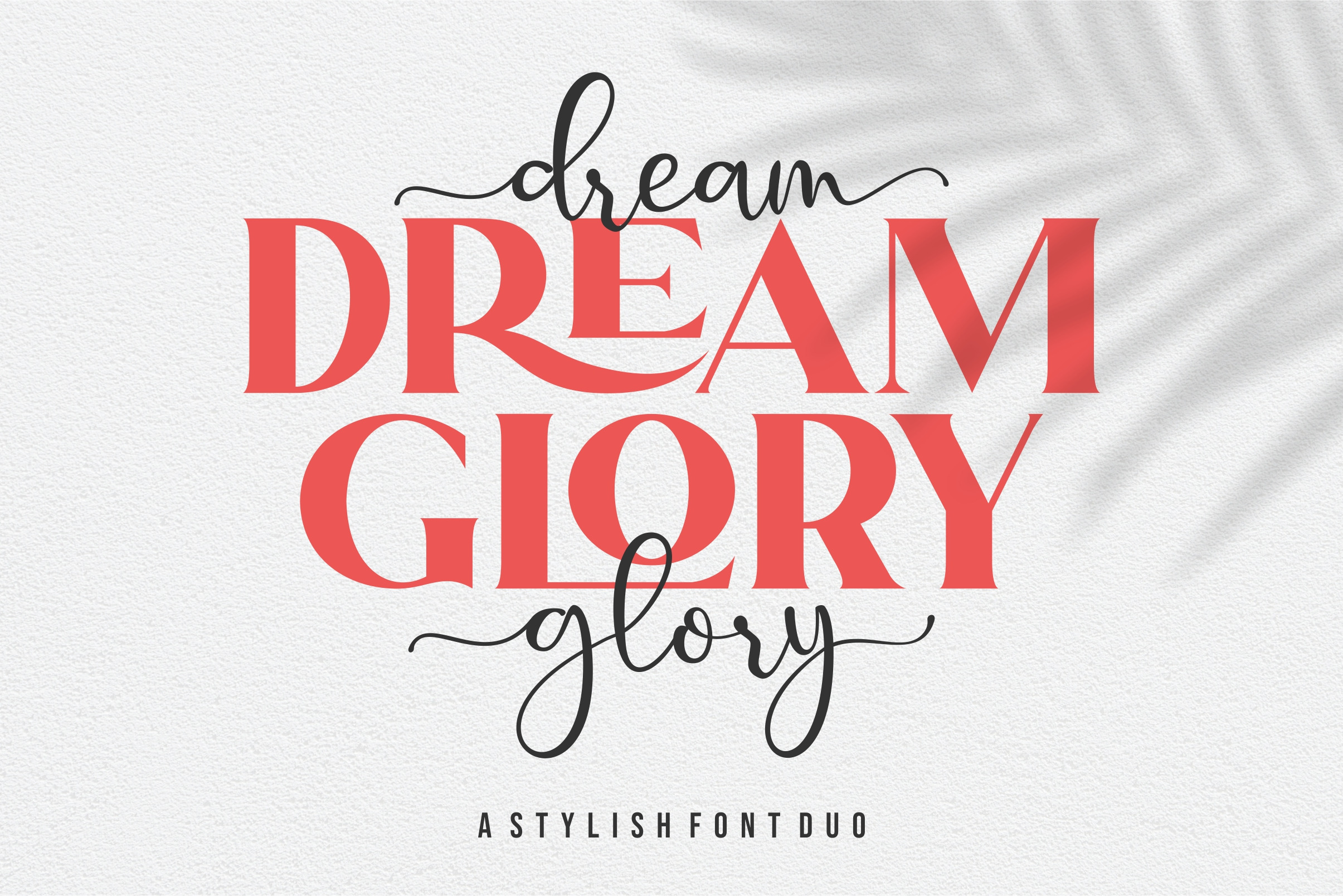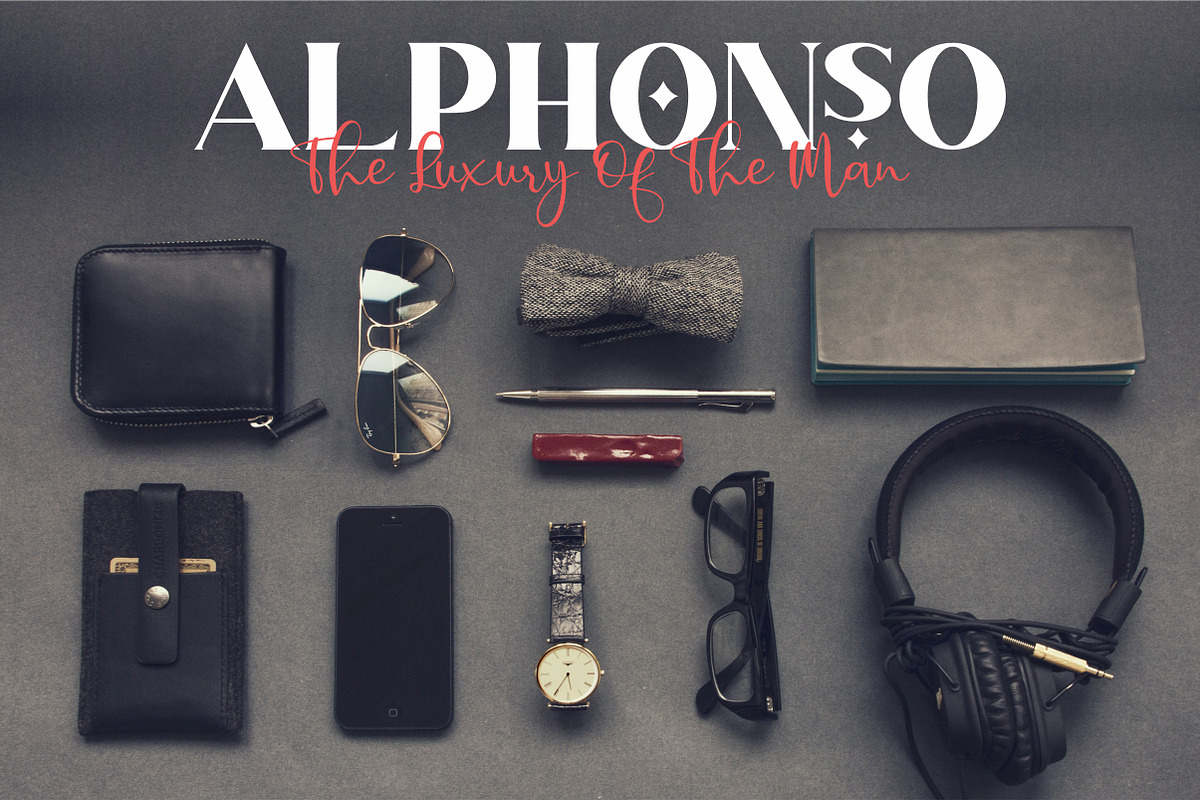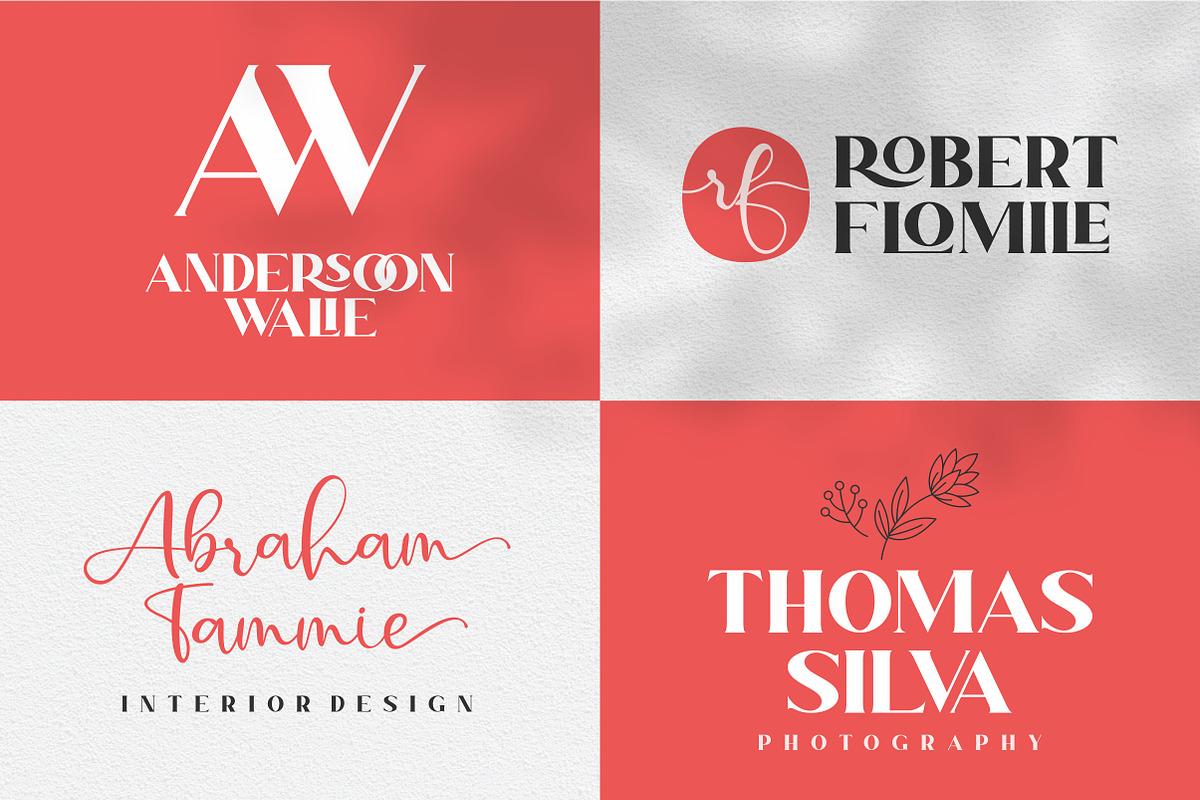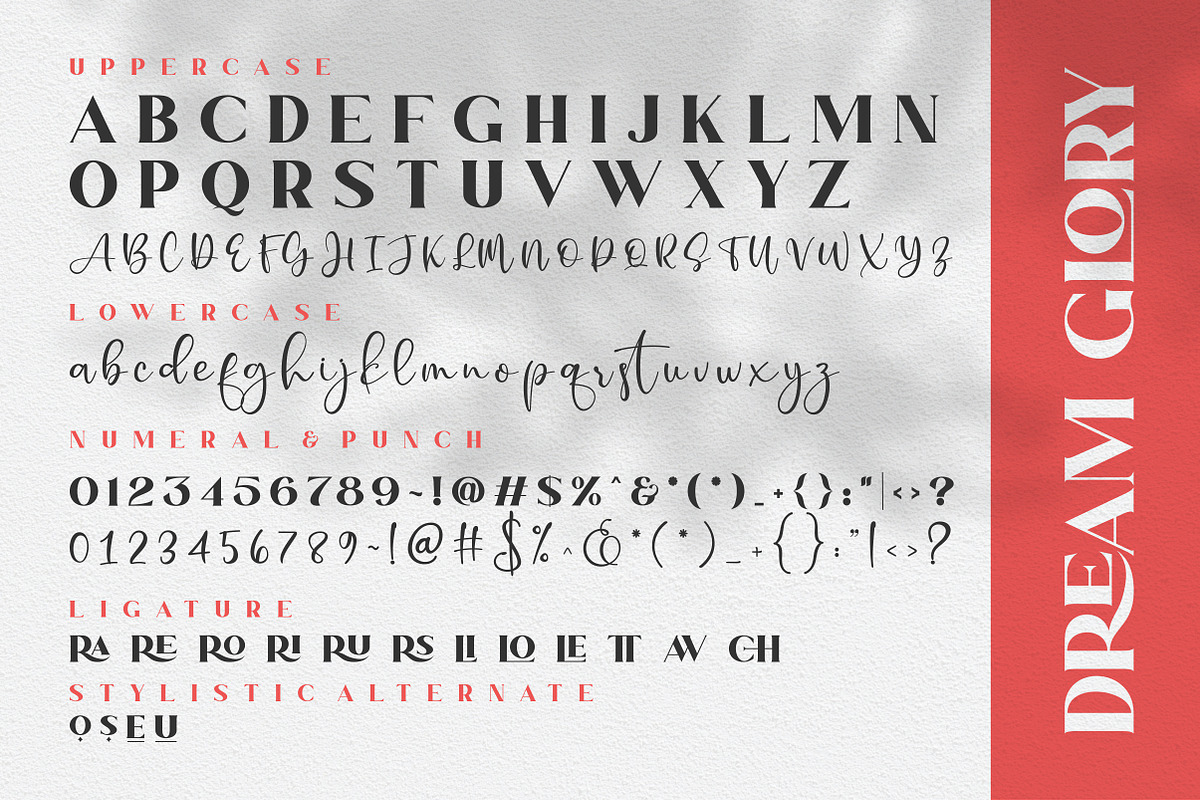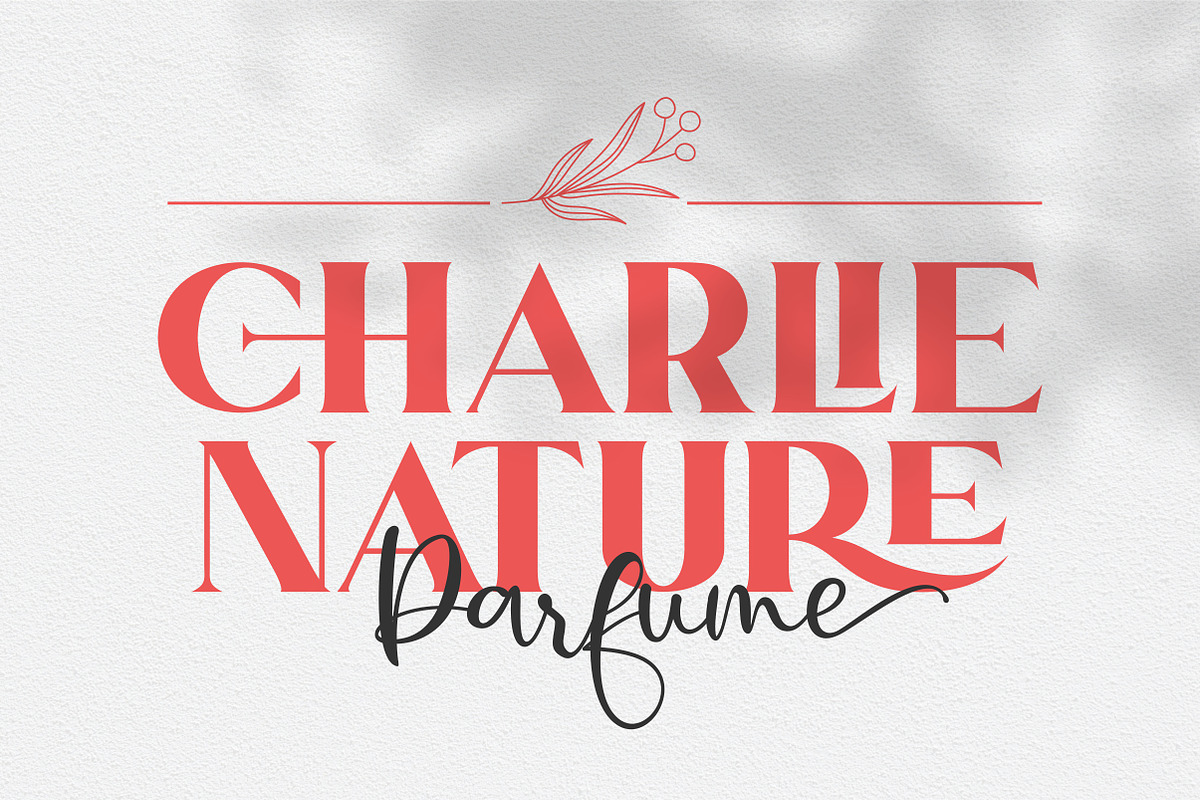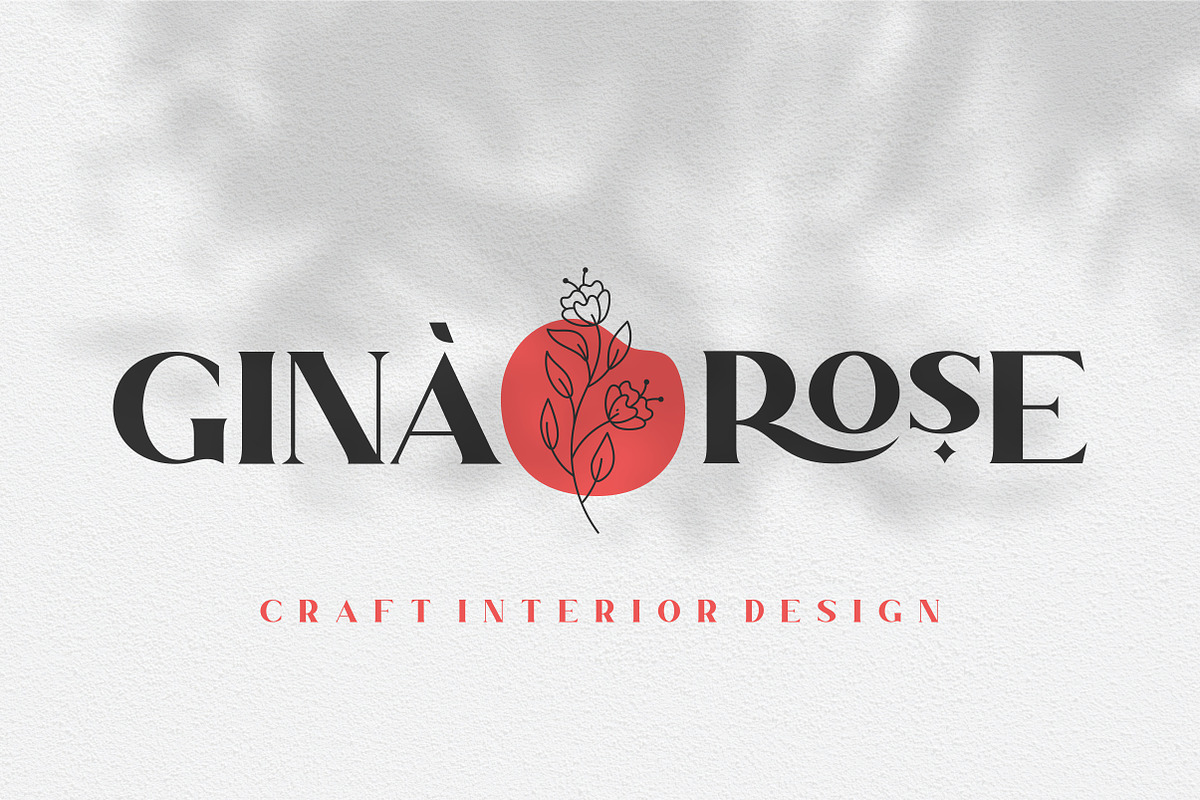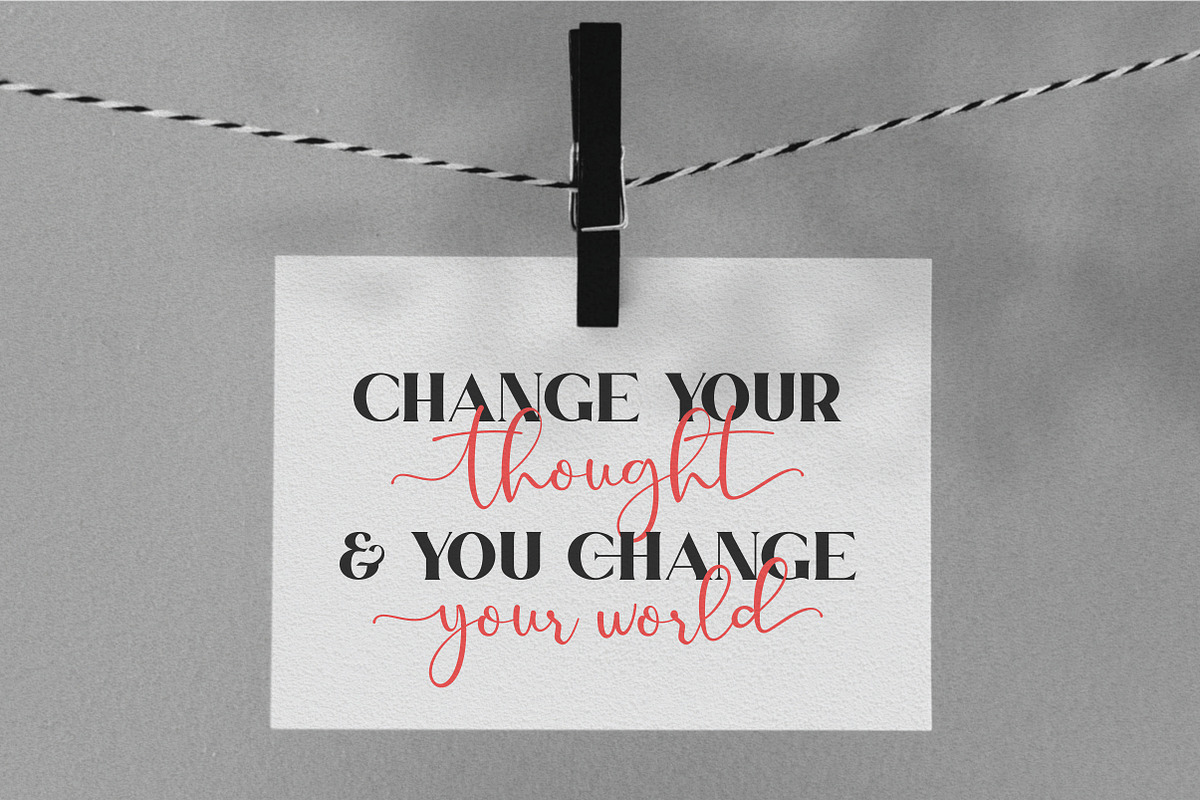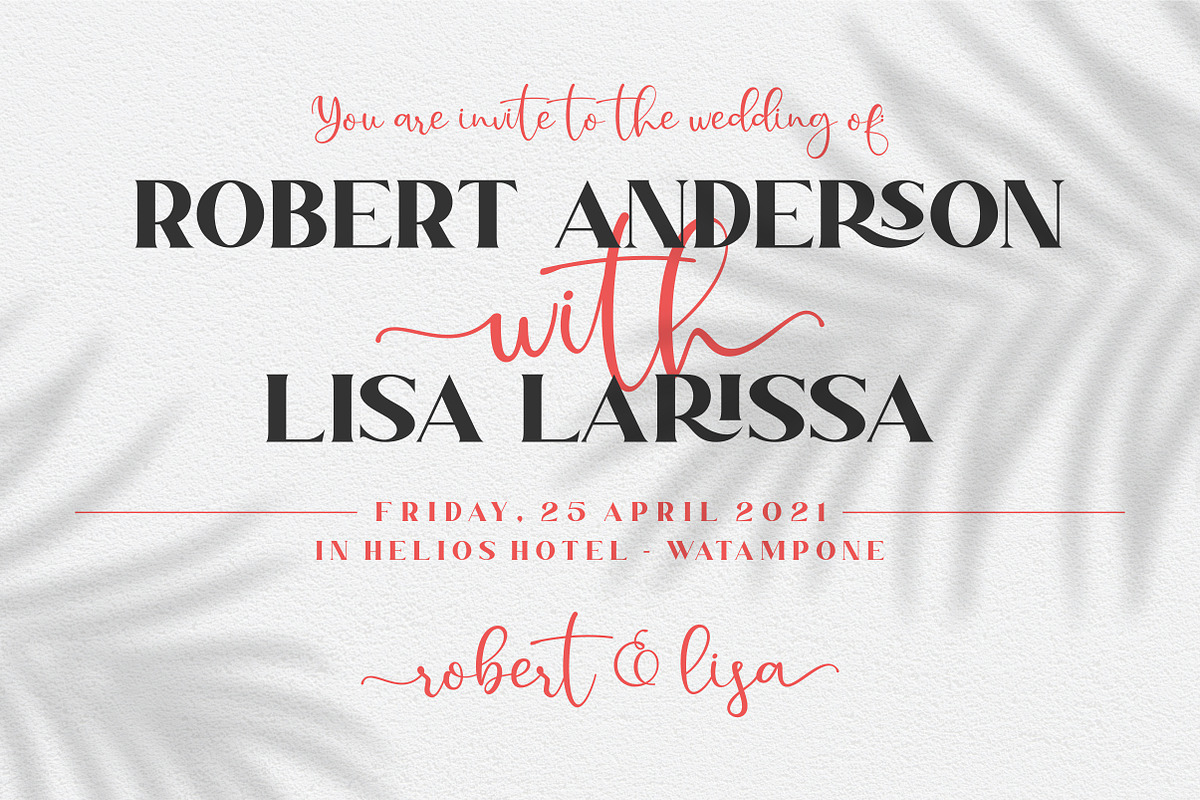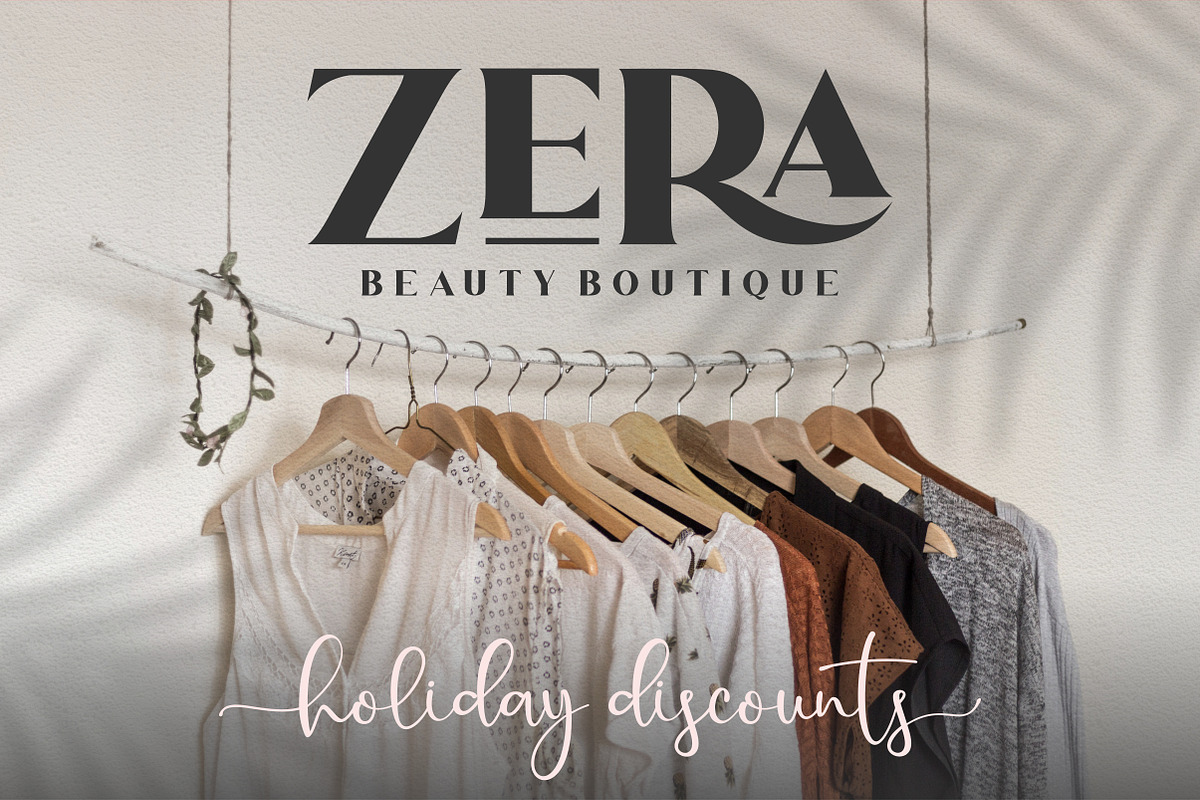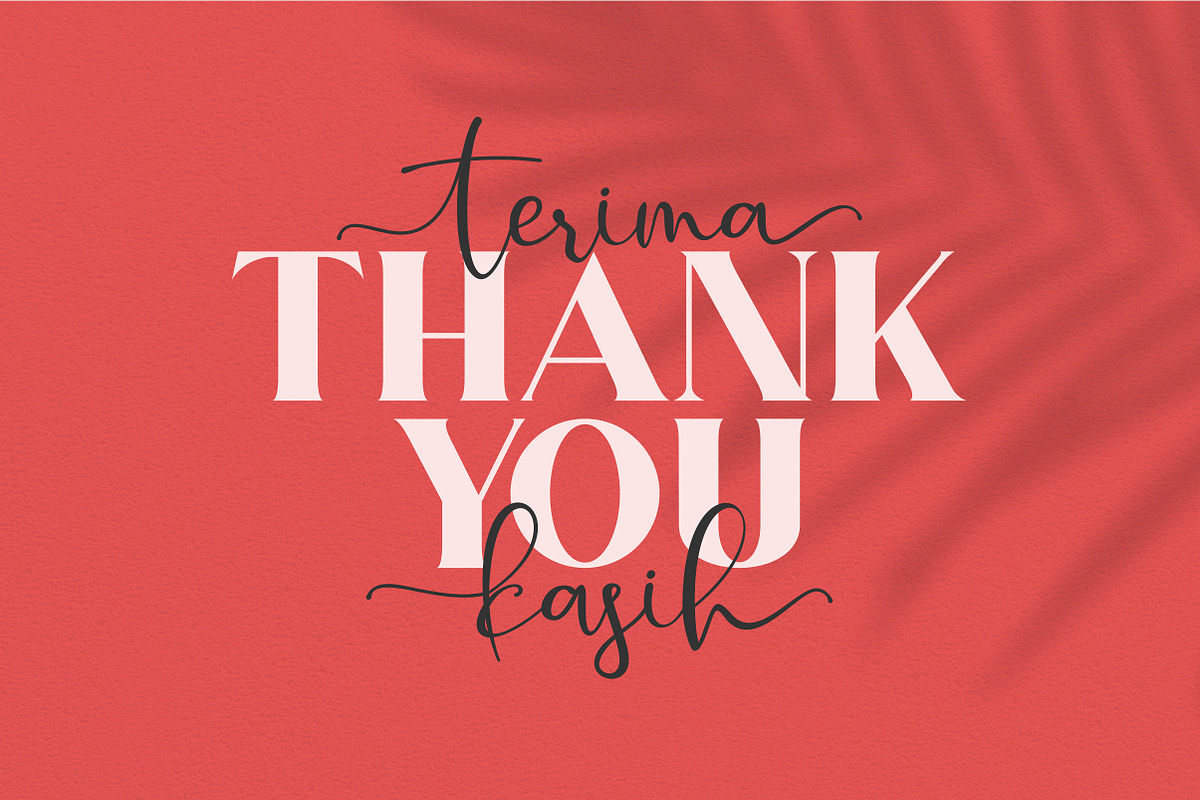
Dream Glory | A Stylish Font Duo
INTRODUCING, Dream Glory, A Stylish Font Duo, these fonts are of two types serif and script. This typeface has been made carefully to make sure its premium quality and luxury feel. The ligatures on serif makes this typeface unique and stands out rather than the regular serif font, perfectly for headlines, logos, posters, packaging, T-shirts,coffee shops, restaurants, magazine's headers, signs or gift/post cards,cafe's and weddings or any type of advertising purpose.